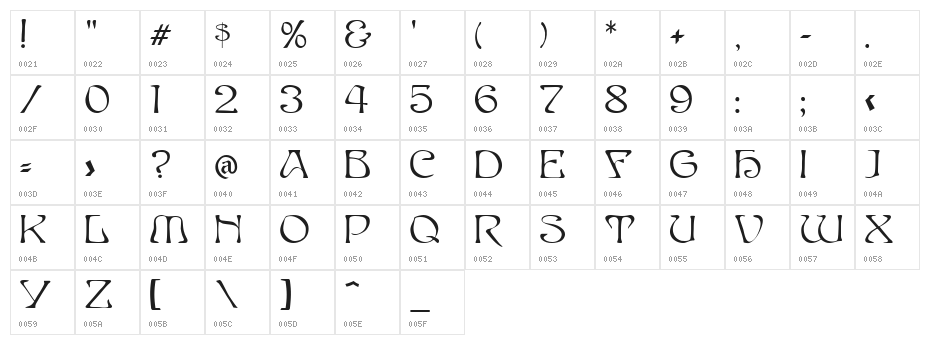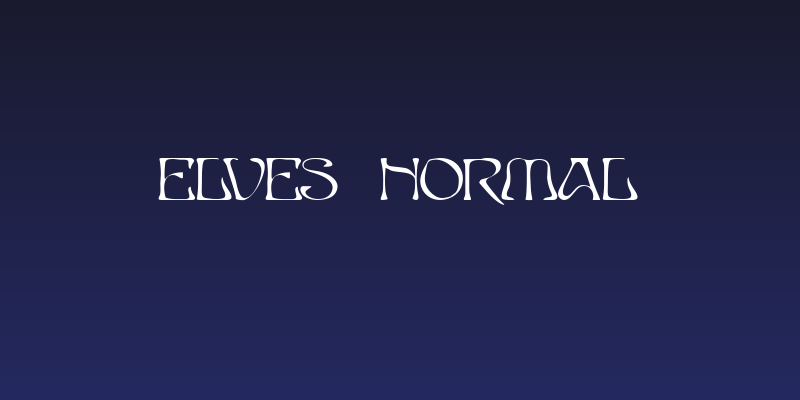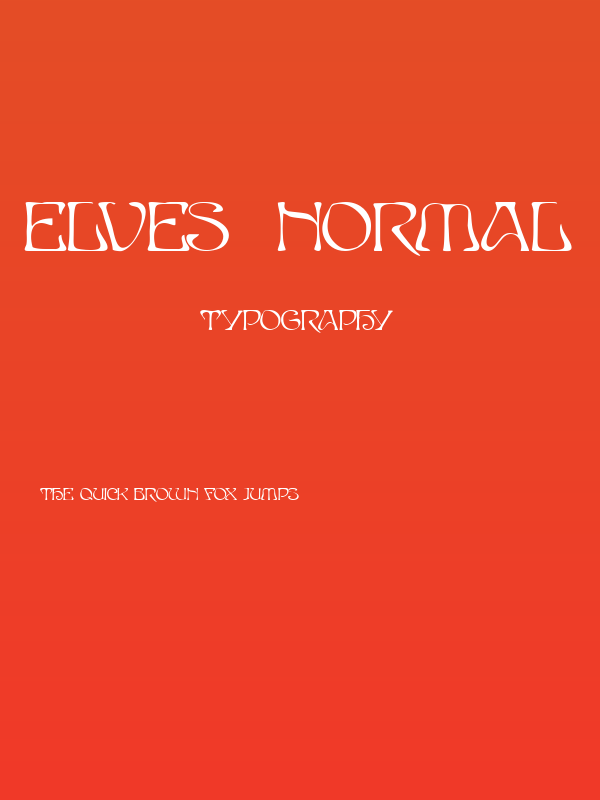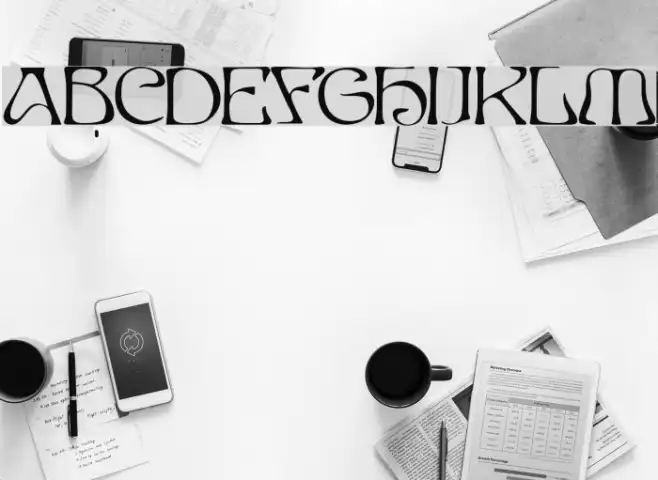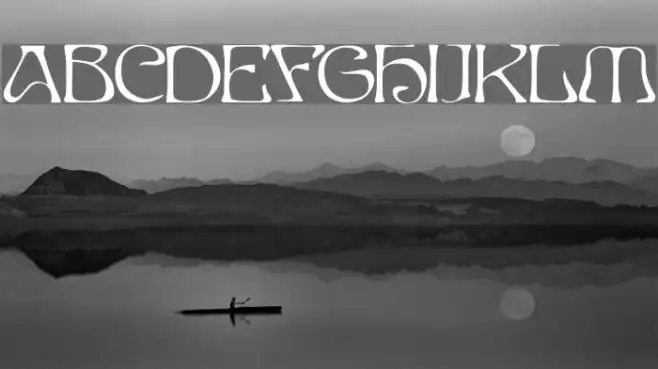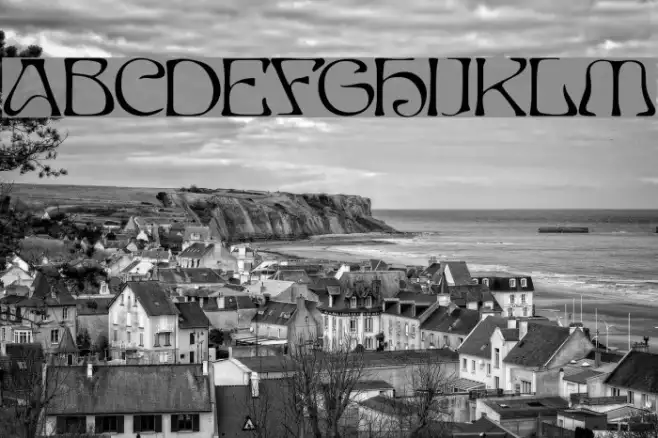
Elves Normal Font
Elves Normal Description
This font features a unique and whimsical design, characterized by its flowing, curved lines and intricate detailing. The uppercase letters exhibit a playful yet elegant style, with each character having distinct, artistic flourishes that give it a magical and otherworldly appearance. The lowercase letters maintain this enchanting theme, with a slightly more subdued flair, ensuring readability while retaining the font's distinctive charm. The numerals are bold and consistent, matching the overall aesthetic with their rounded and stylized forms. Special characters are creatively designed, adding to the font's versatility and appeal. This font is perfect for projects that require a touch of fantasy and creativity, making it ideal for themed events, fantasy novels, or artistic branding.
| Overall Style | Whimsical, Artistic |
| Proposed Projects | Ideal for fantasy-themed projects, artistic branding, event invitations, and creative book covers. |